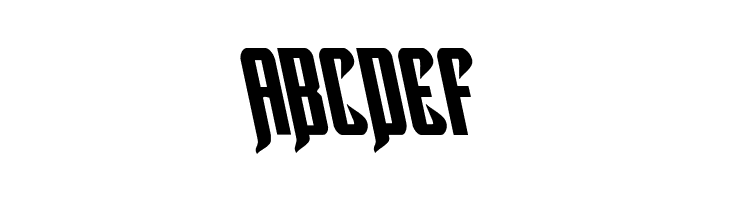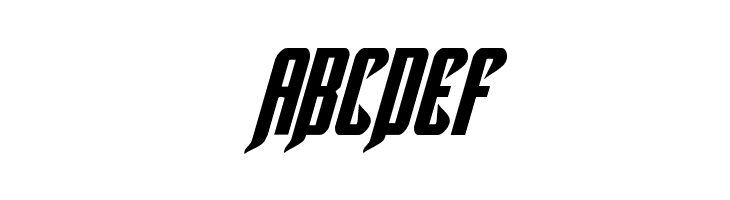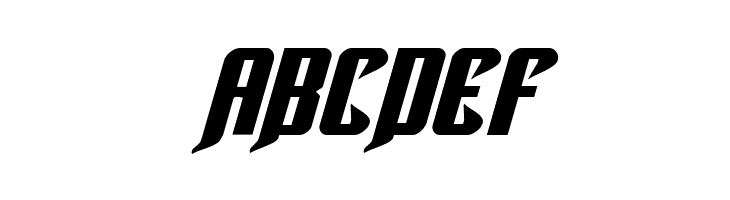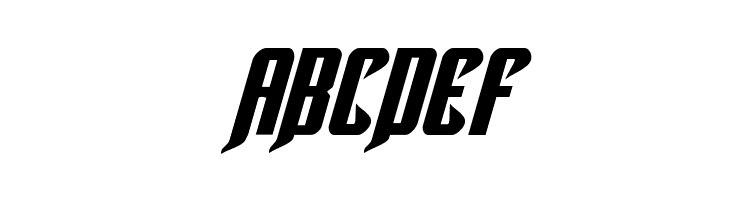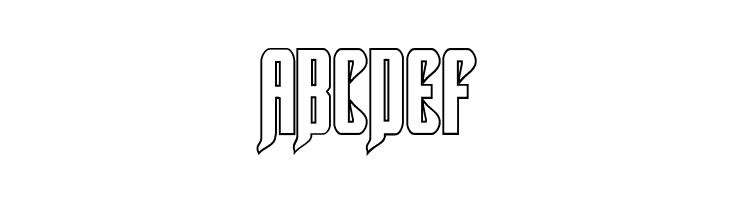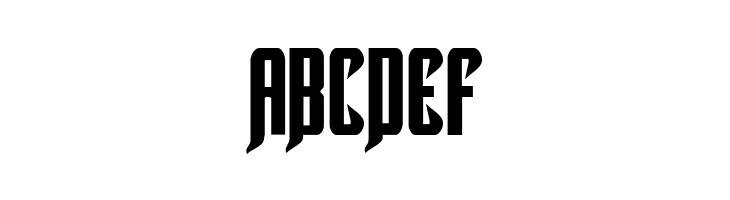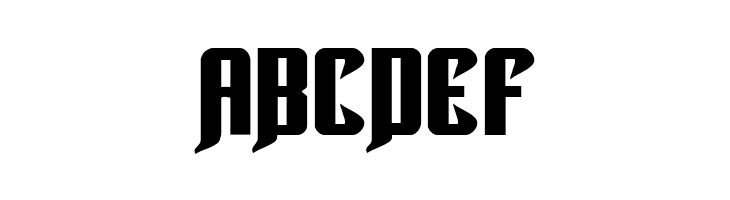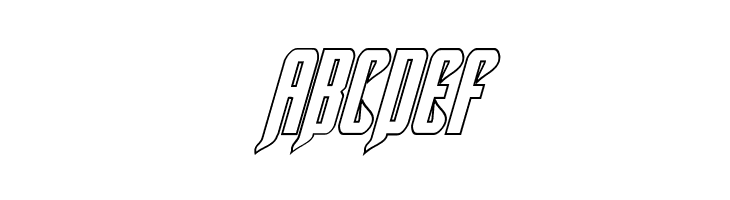
• Hawkmoon Expanded Italic
A bold, expanded italic font with a modern and dynamic style.
• Hawkmoon Extra-expanded
A bold, extra-expanded decorative font with angular, geometric shapes.
• Hawkmoon Extra-expanded Italic
A bold, extra-expanded italic font with a modern, dynamic style.
• Hawkmoon Italic
A bold, italic font with sharp angles and high contrast, perfect for dynamic designs.
• Hawkmoon Leftalic
A bold, left-slanted font with a dynamic and energetic style.
• Hawkmoon Regular
A bold, geometric font with tall, narrow characters and sharp angles.
• Hawkmoon Rotalic
A bold, slanted font with a dynamic and modern geometric style.
• Hawkmoon Shadow Italic
Bold, italicized font with a shadow effect and dynamic style.
• Hawkmoon Shadow Regular
A bold, geometric font with a shadow effect for a modern, 3D look.
• HaydenPanettiereBats demo
Portrait-based dingbat font with stylized black-and-white faces.
• HaydenPanettiereBats demov1.5
Portrait-based decorative dingbat font with high-contrast illustrations.
• HeadfeeterOTwo
A decorative and abstract font with characters in circular shapes, featuring geometric patterns.
• HeadfeetersPartialDisturbed
A quirky cartoon-style display font with each character as a caricature.
• HeadFeeterThree
Playful dingbat font with object-headed stick figures.
• HeadImprovisations
A decorative and abstract font with characters in circular shapes, featuring bold and artistic designs.
• HeadImprovisationsTwo
An abstract, artistic font with characters enclosed in circular shapes, featuring unique geometric and illustrative designs.
• HeadintheCloudsBOLD
A playful, cloud-inspired decorative font with bold, rounded characters.
• HeadsAndHandsTwo
Cartoonish, illustrative font made of quirky character drawings.
• HeadsCallSketches
Hand-drawn, abstract font made of expressive face sketches.
• HeadsConstructed
Abstract, face-themed decorative font with geometric shapes.
• HeadsConstructedTwo
Playful, abstract stick-figure font with expressive faces.